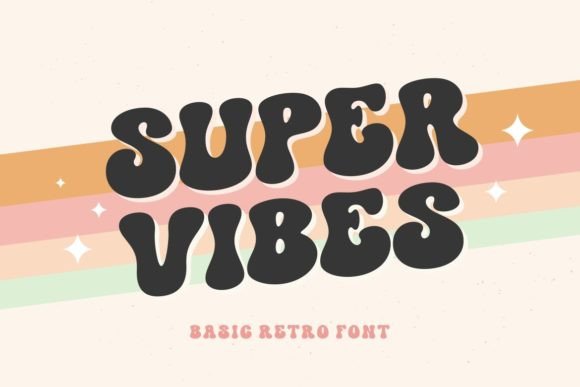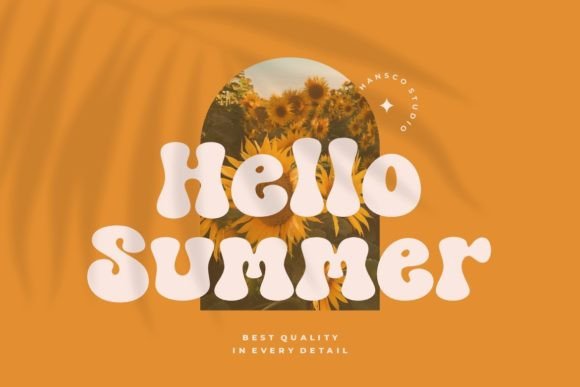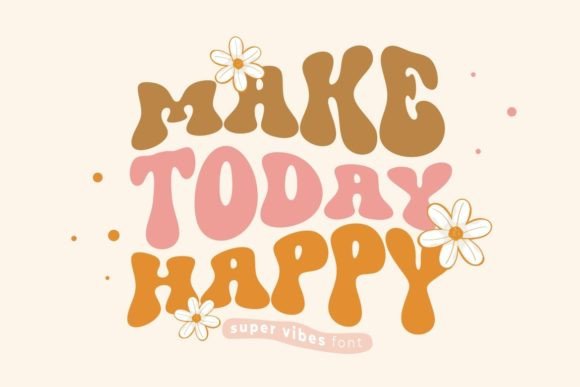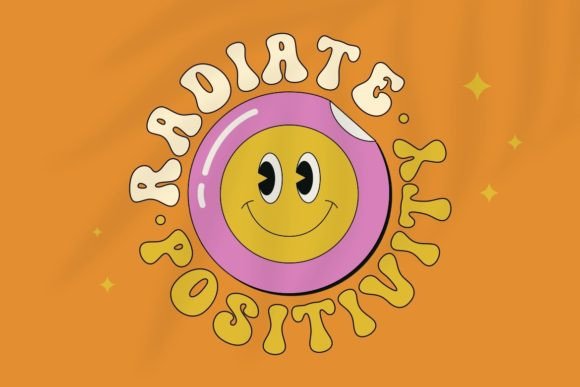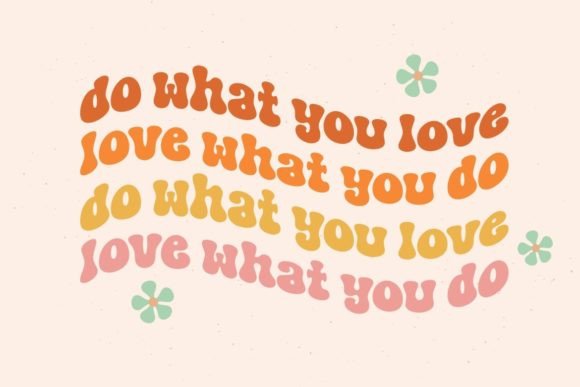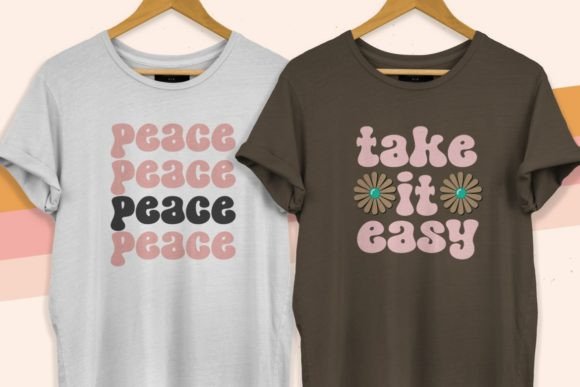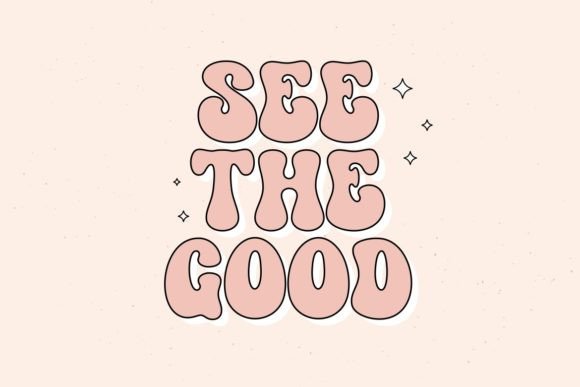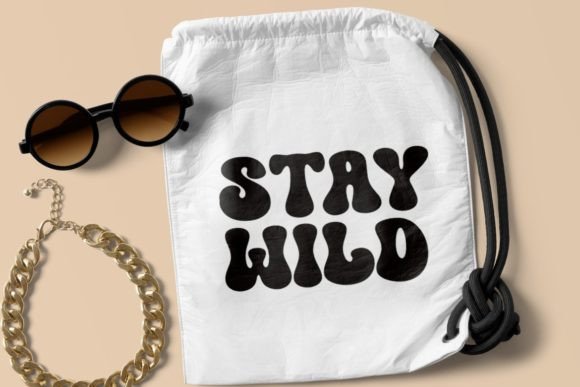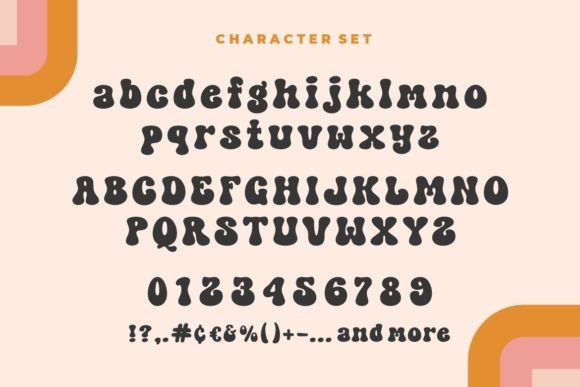
Super Vibes font is a retro groovy display font. Use this display font to add that special retro touch to any design idea you can think of! Masterfully designed to become a true favorite, this font has the potential to bring each of your creative ideas to the highest level!